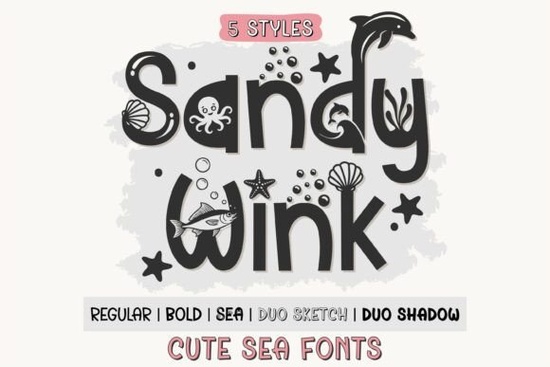
What makes this font family feel so cheerful?
Sandy Wink isn’t just one look. The family includes five distinct styles, each with its own personality. The Regular weight keeps things soft and rounded, Bold adds a bit more punch, and the Sea style turns letters into tiny ocean adventures with hand-drawn doodles of shells, fish, and bubbles. Then there’s the layered duo: Sketch and Shadow. When you place these two on top of each other, you get a dimensional, hand-inked effect that works beautifully for badges, stickers, and sublimation designs. All five work together without feeling disjointed, so you can mix and match across a single project without a hitch.Which styles are included in Sandy Wink?
- Regular – a friendly, rounded base style
- Bold – a thicker, more grounded version of the Regular
- Sea – the standout style, packed with tiny doodles like sea creatures, shells, and bubbles
- Sketch – the outline or top layer for a two-color look
- Shadow – the solid offset layer that creates depth beneath Sketch
How can I use the Sea style in my crafts?
The Sea style is really the heart of this font. Each character carries its own little illustration, so when you type a name like “Luna” you’ll get a string of letters with tiny seahorses, starfish, and bubbles woven into the shapes. This makes it perfect for ocean-themed birthday banners, beach party favor tags, or even iron-on designs for a child’s summer tote bag. Because the doodles are part of the letter outlines, they cut cleanly on Cricut and Silhouette machines. Just weld your text before sending it to cut, and you’ll have a smooth, single-piece design.
For print-on-demand sellers, this style works effortlessly on baby onesies, nursery wall art, and coffee mug wraps. A simple “hello summer” print in Sea style becomes an instant seasonal bestseller without needing extra clipart.
Is Sandy Wink easy to use with cutting machines?
Where does Sandy Wink work best?
This font shines in projects aimed at kids, families, and anyone who loves a playful, handcrafted look. Think along these lines:
- Children’s book covers and title pages
- Nursery decor, growth charts, and name signs
- Birthday party supplies, cupcake toppers, and thank-you tags
- Summer camp T-shirts and tote bags
- Classroom door displays, supply labels, and bulletin boards
- Water bottle decals, laptop stickers, and planner inserts
Because the font feels so organic, it pairs nicely with a clean sans-serif or a soft handwritten script. It also complements other doodle fonts well. For example, a school-themed doodle font can sit right alongside it on a teacher appreciation card, while a spiky display font adds contrast when you need a little edge.
Sandy Wink is a decorative font family, so it’s not meant for long paragraphs of body copy. Use it for headlines, short quotes, names, and focal points. The layered Sketch and Shadow styles need to be aligned manually in some older software, though most current programs handle it smoothly. Also, the doodled Sea style reads best at larger sizes think 1.5 inches or taller on a cut project so those tiny details don’t get lost.